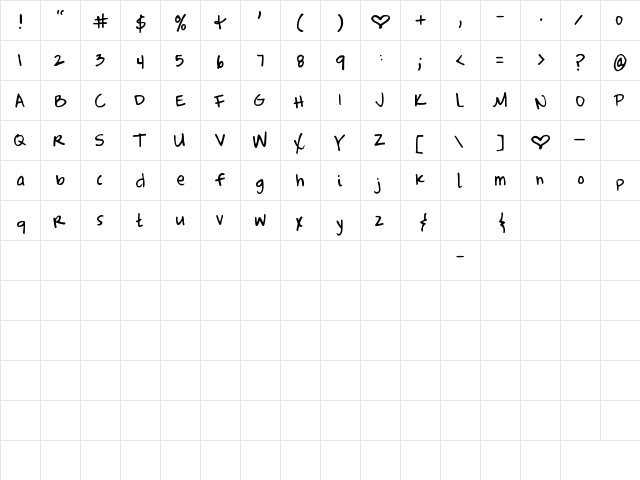
Complete in Him Regular
| Designer | Kimberly Geswein |
Design Context for Complete in Him Typeface
Complete in Him is a composed and adaptable typeface that performs quietly and consistently across a wide range of design contexts.
Pro Tip: Use Complete in Him in both headline and body roles to test its range before committing to a single application.